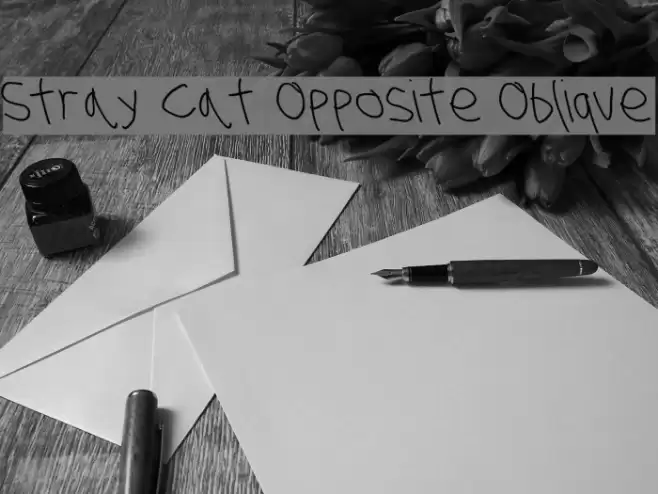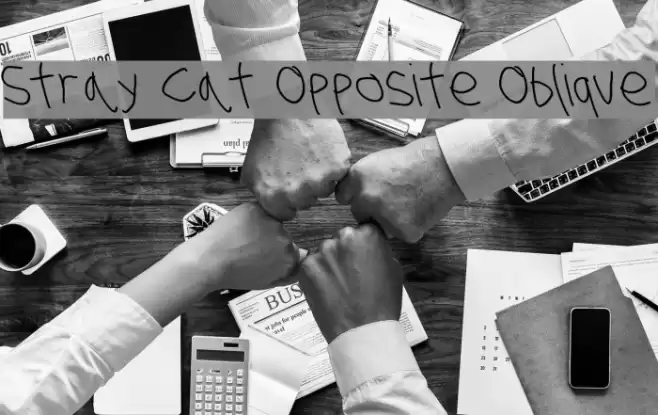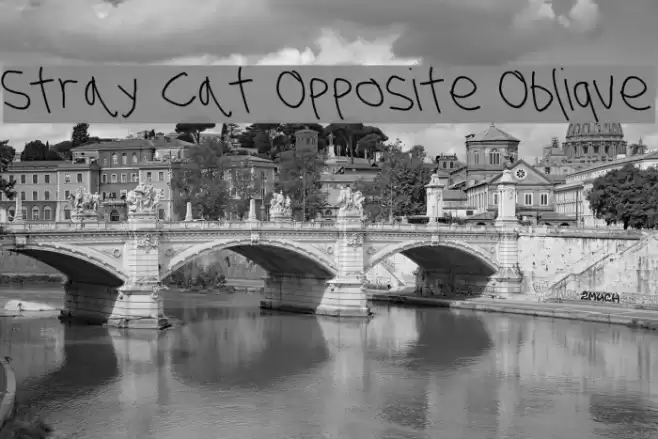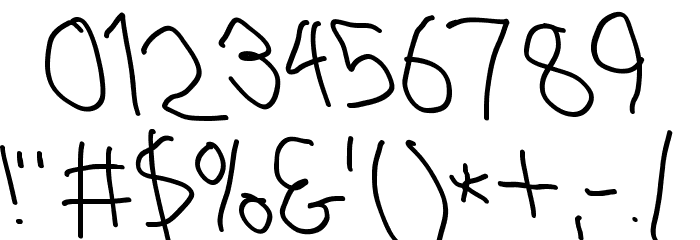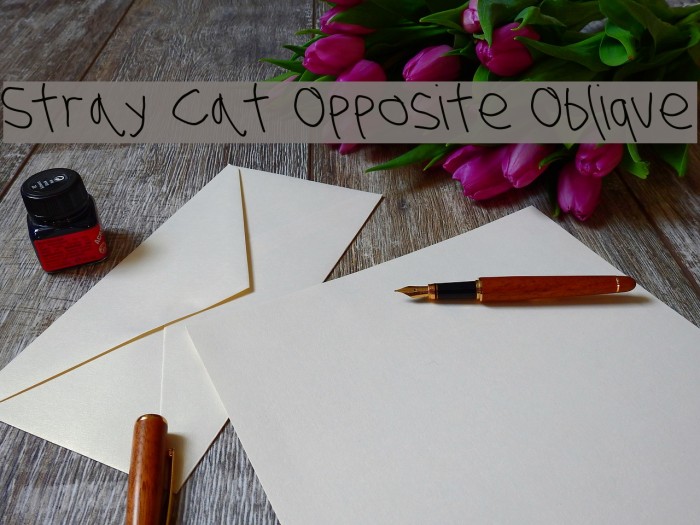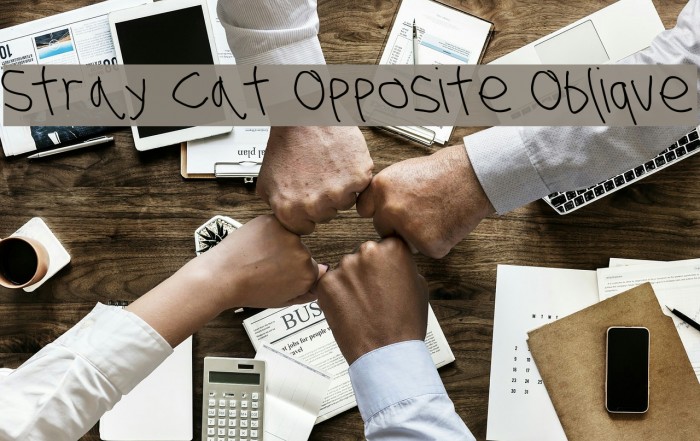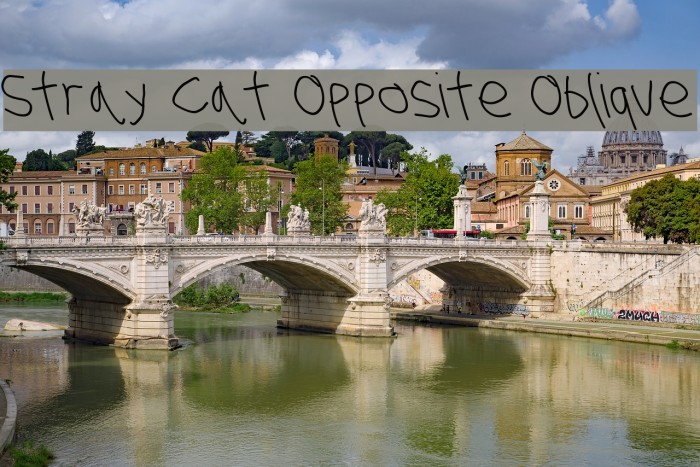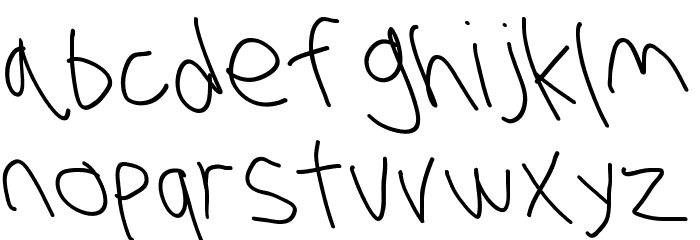
Stray Cat Opposite Oblique Font
Stray Cat Opposite Oblique Description
This font features a playful, handwritten style with a casual and informal appearance. The letters are slightly uneven, adding to its charm and authenticity. The strokes are consistent in width, giving it a uniform look despite its freeform nature. The characters are well-spaced, ensuring readability while maintaining a whimsical feel. This font is perfect for projects that require a personal touch or a creative flair. Its unique style makes it suitable for artistic and expressive designs.
A playful, handwritten font with a casual and informal style from Uncategorized fonts.
- Proposed Projects: Ideal for greeting cards, children's books, creative posters, and personal branding.
- Overall Style: Casual, Playful
- Use Case: Headlines, Informal text, Creative projects